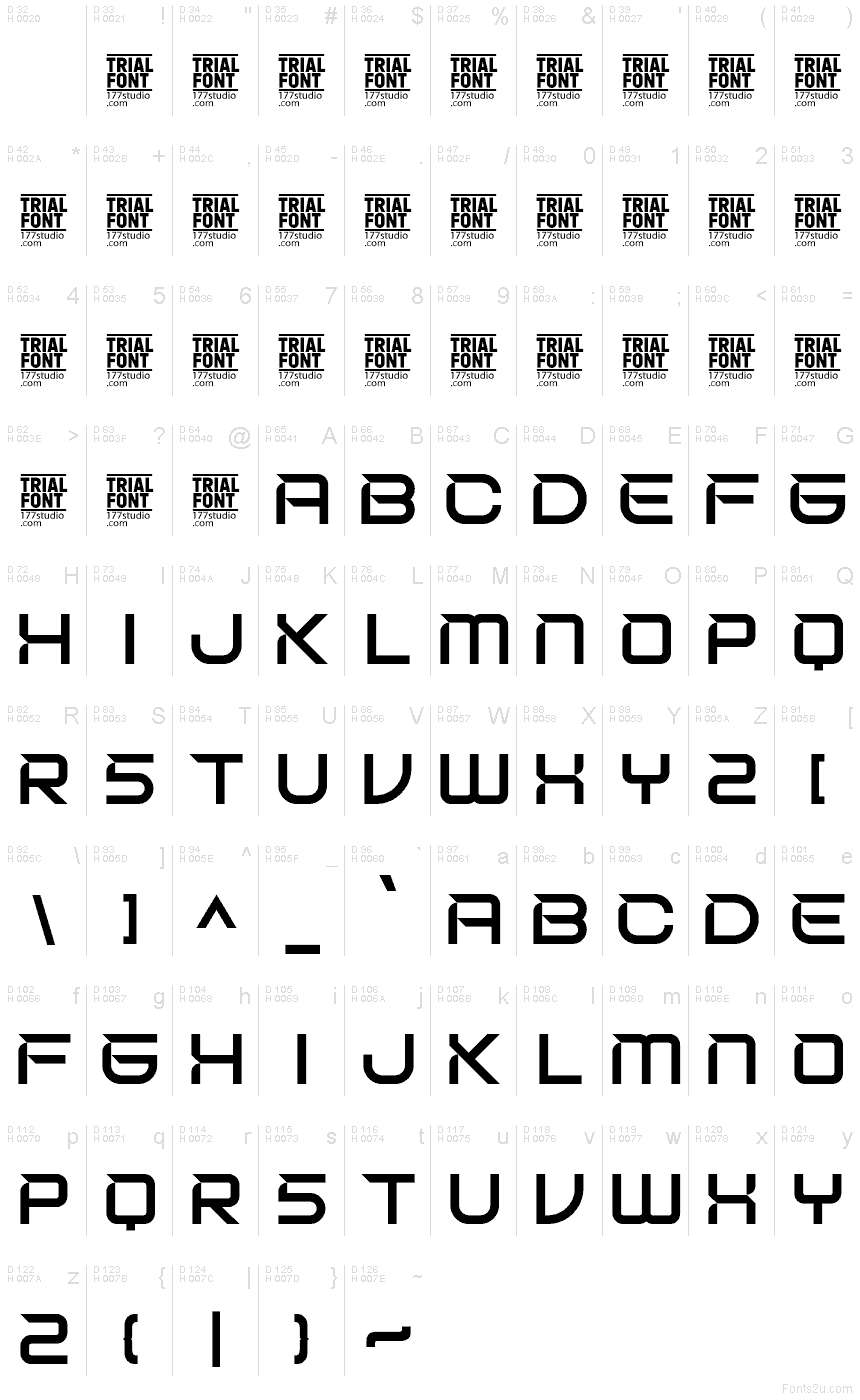
Before Modern Demo Regular
Before Modern font by 177Studio is a free techno display typeface with a sharp, ribbon-like structure that looks carved from a single metallic strip. Each letter bends and folds with sliced corners and tight spacing, creating a continuous, futuristic rhythm that feels both mechanical and hand-engineered. The result is a bold, monospaced groove that instantly signals sci-fi, cyberpunk, and high-tech energy.
Using Before Modern, you get a headline style that grabs attention on EDM flyers, gaming or esports logos, sci-fi book covers, tech event posters, and experimental branding systems. This free font shines at larger sizes where its angular cuts and negative spaces can breathe; pair it with a clean geometric sans in smaller text to keep layouts balanced and readable.